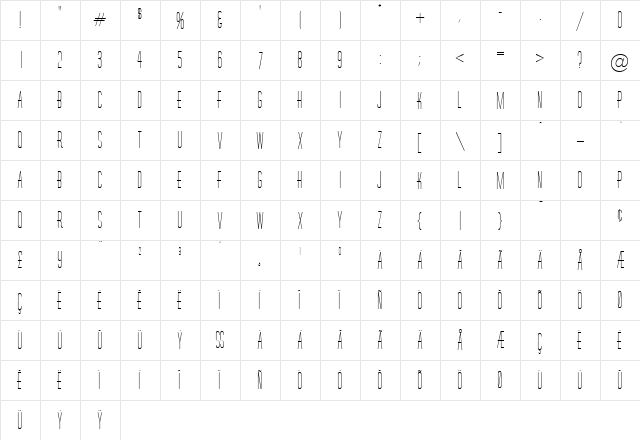
Hornchurch DB Regular
Design Context for Hornchurch DB Typeface
Hornchurch DB takes a measured approach to typography — its balanced proportions and neutral character make it a reliable workhorse for both digital and print work.